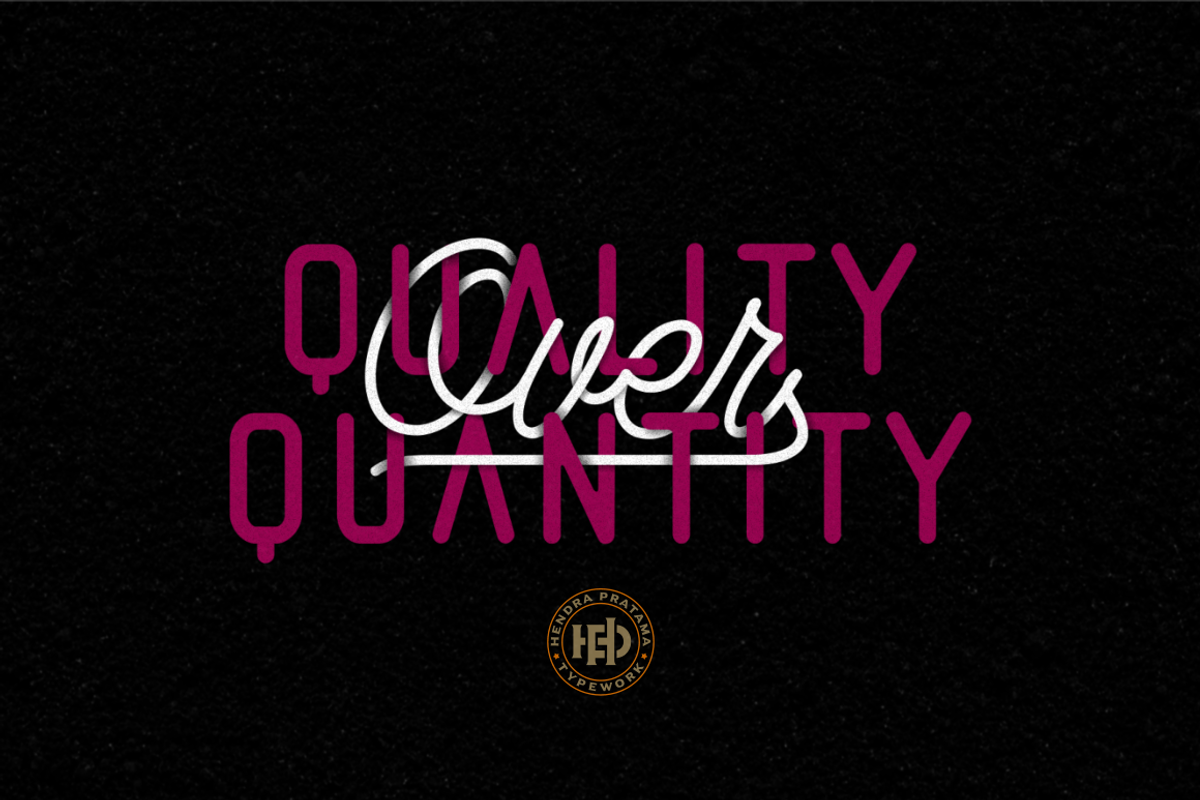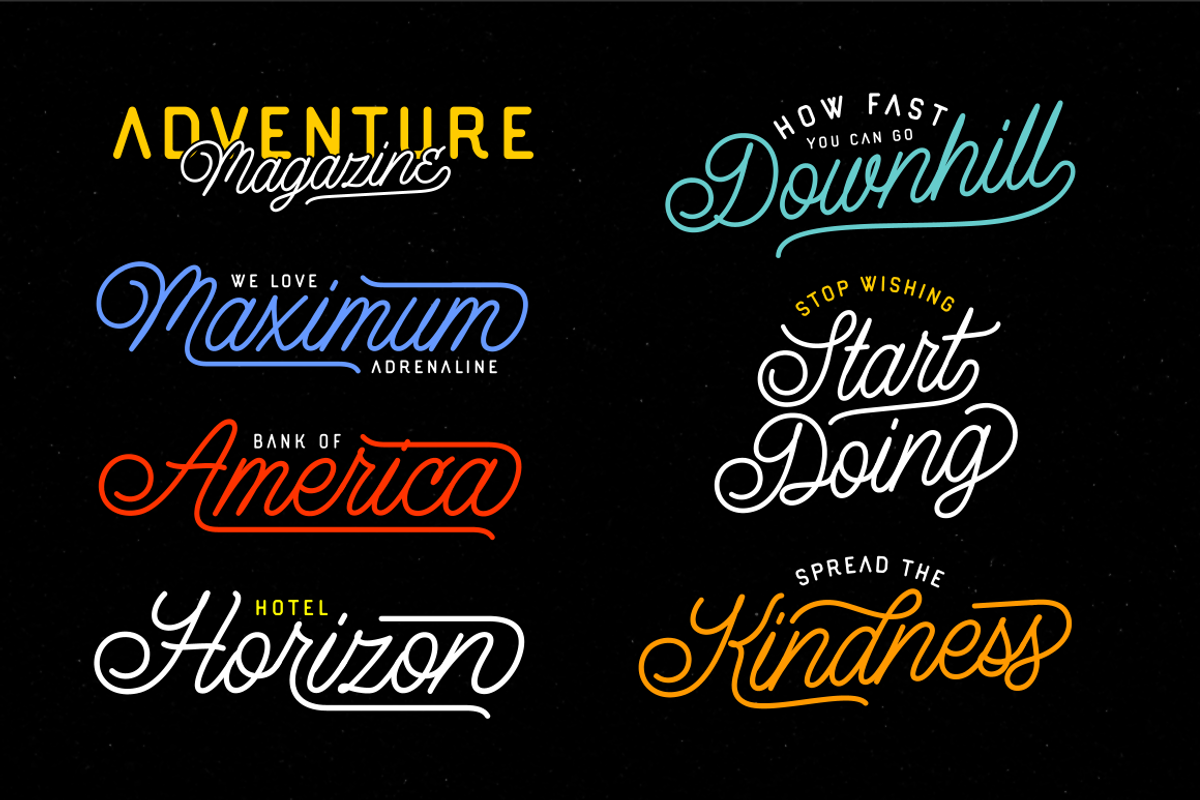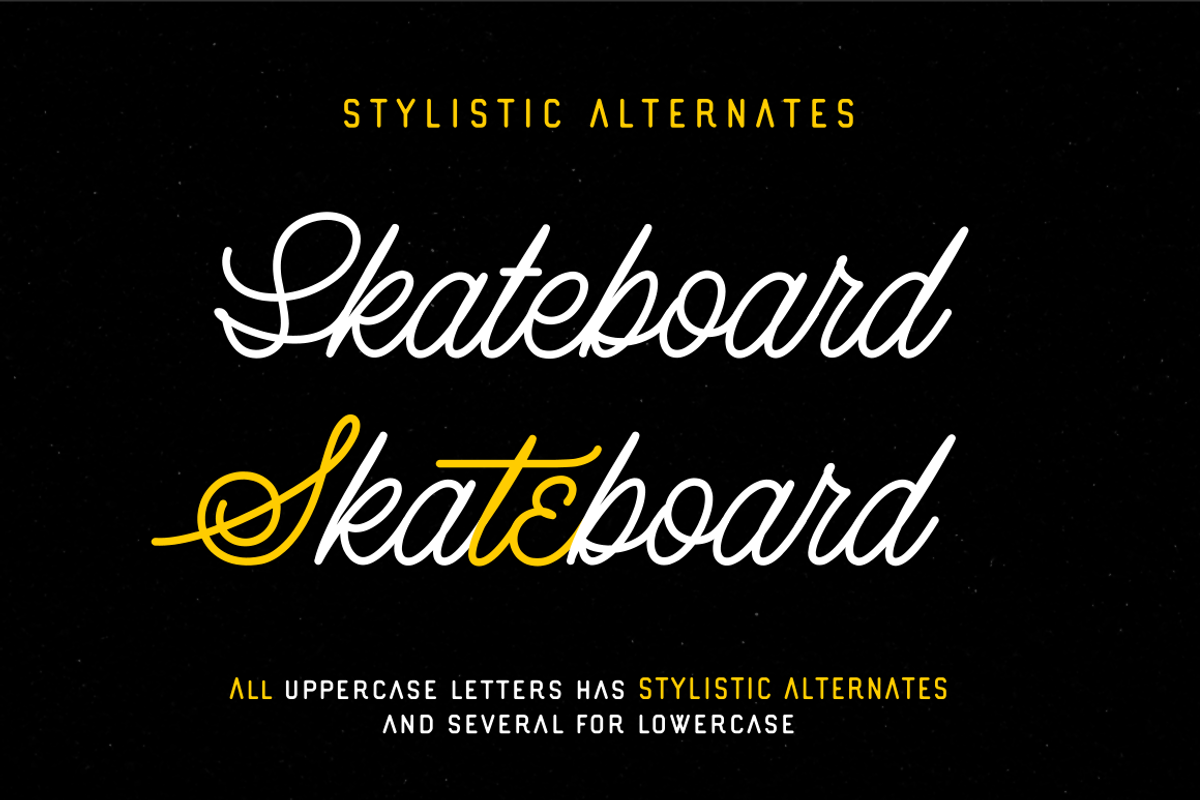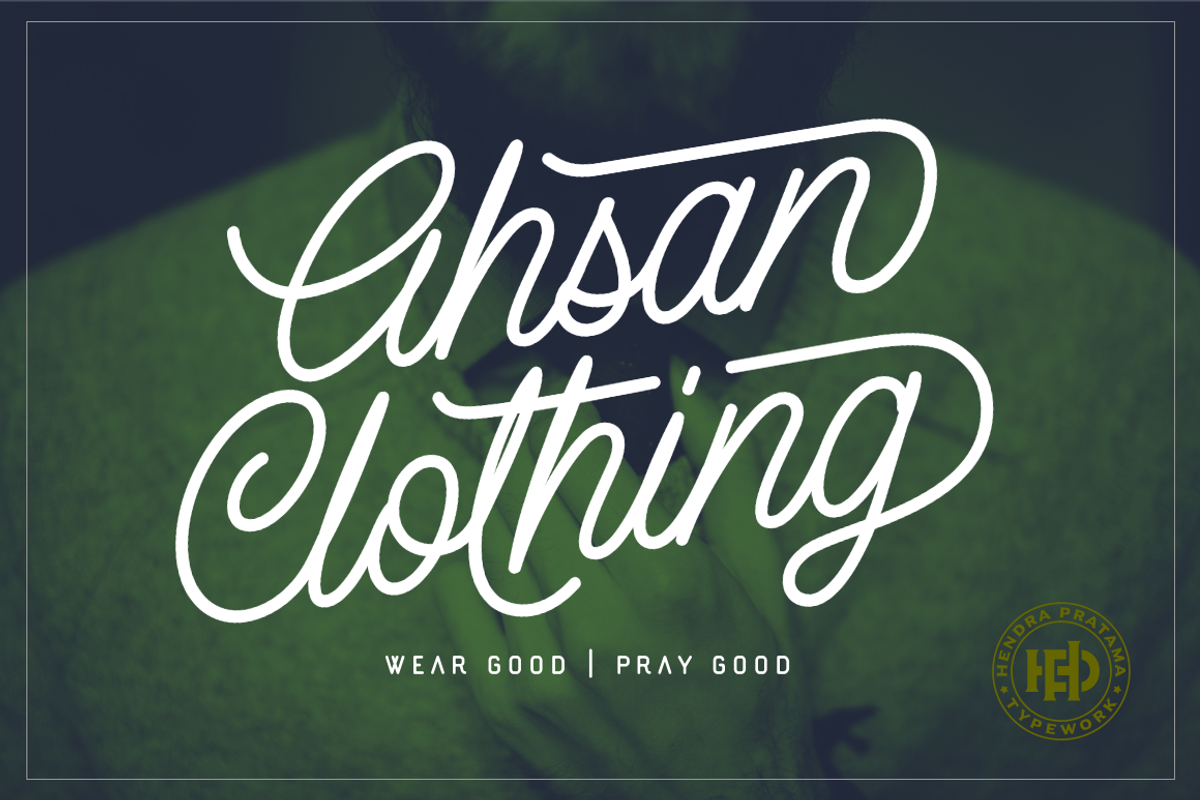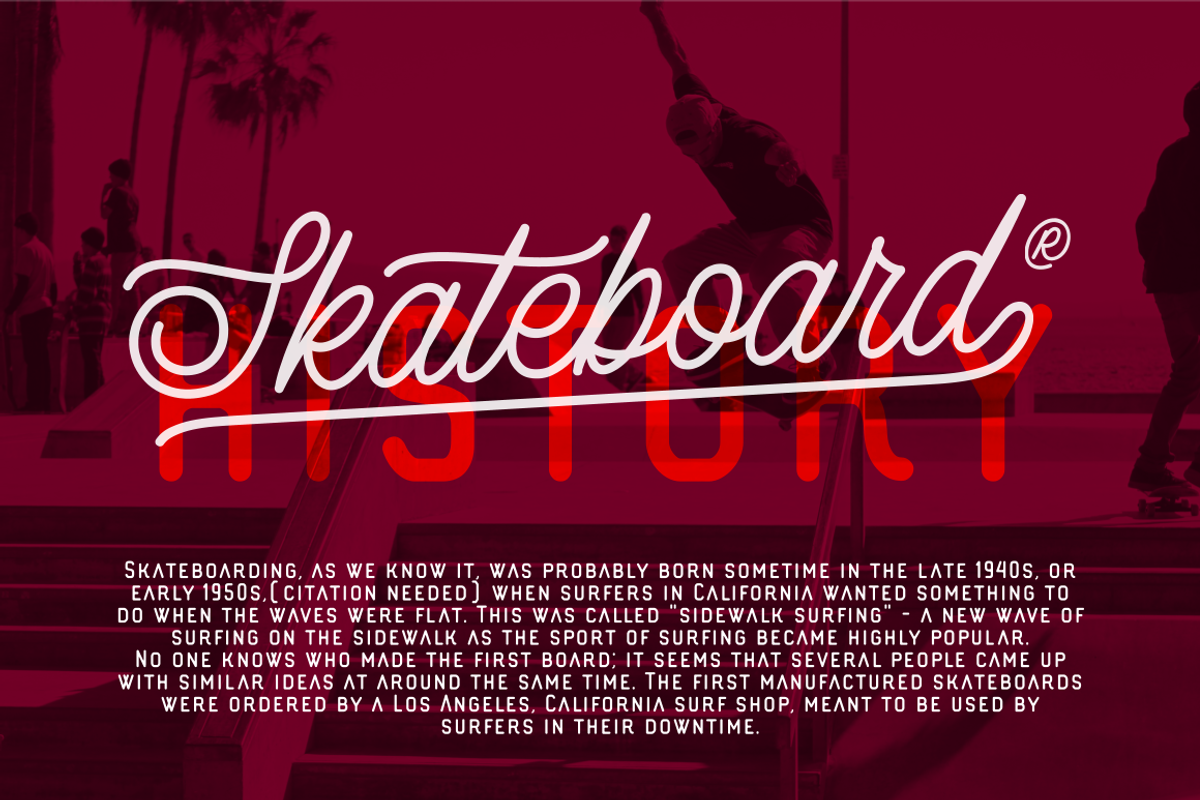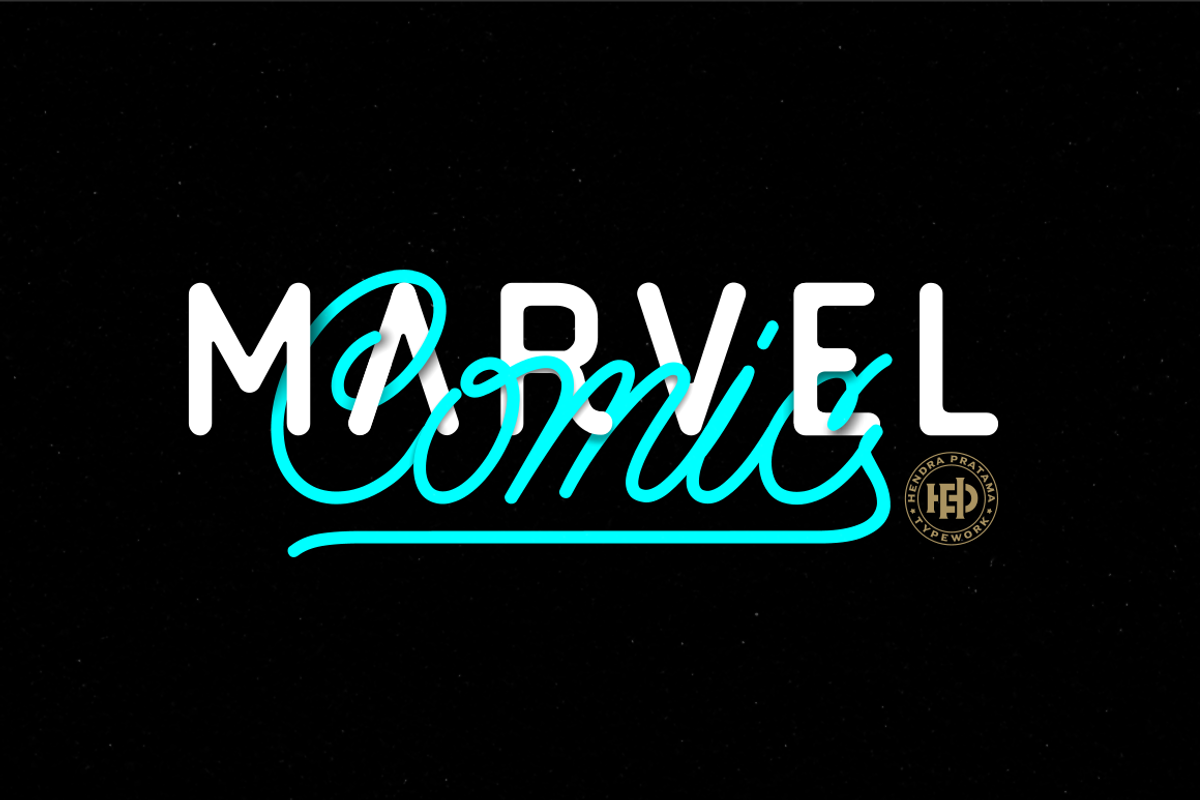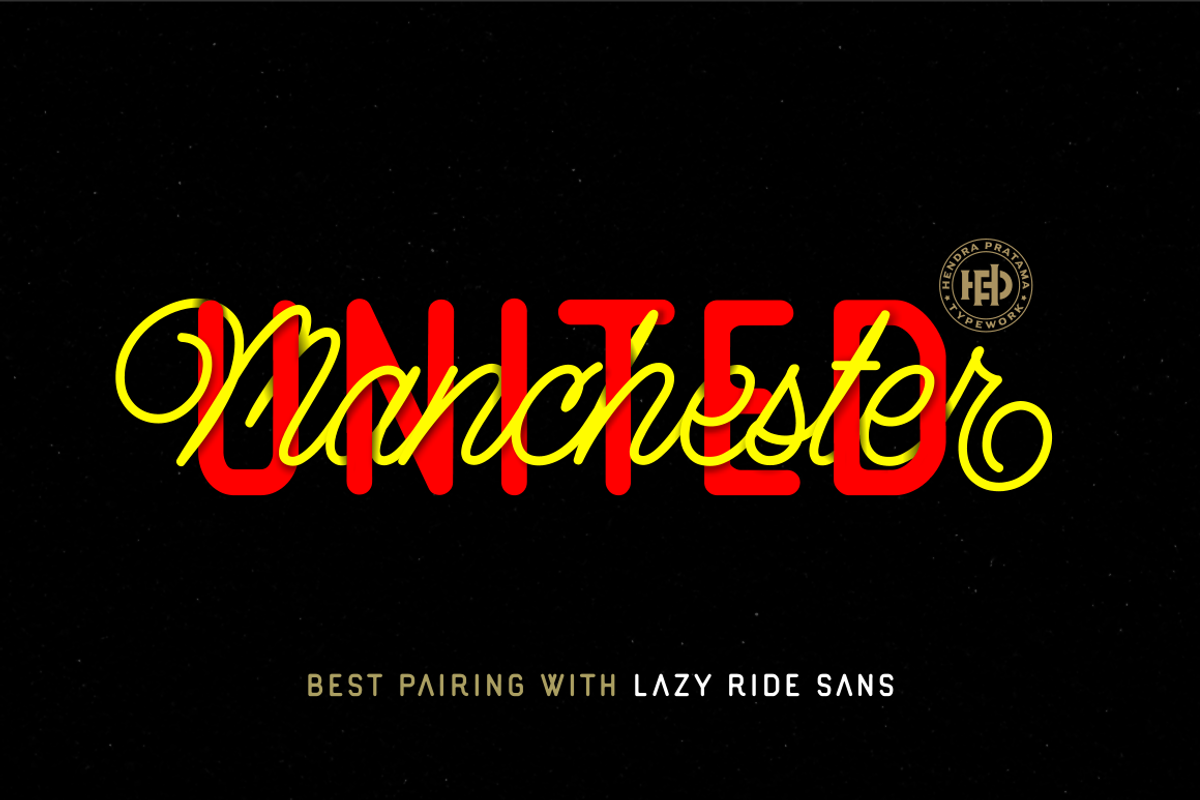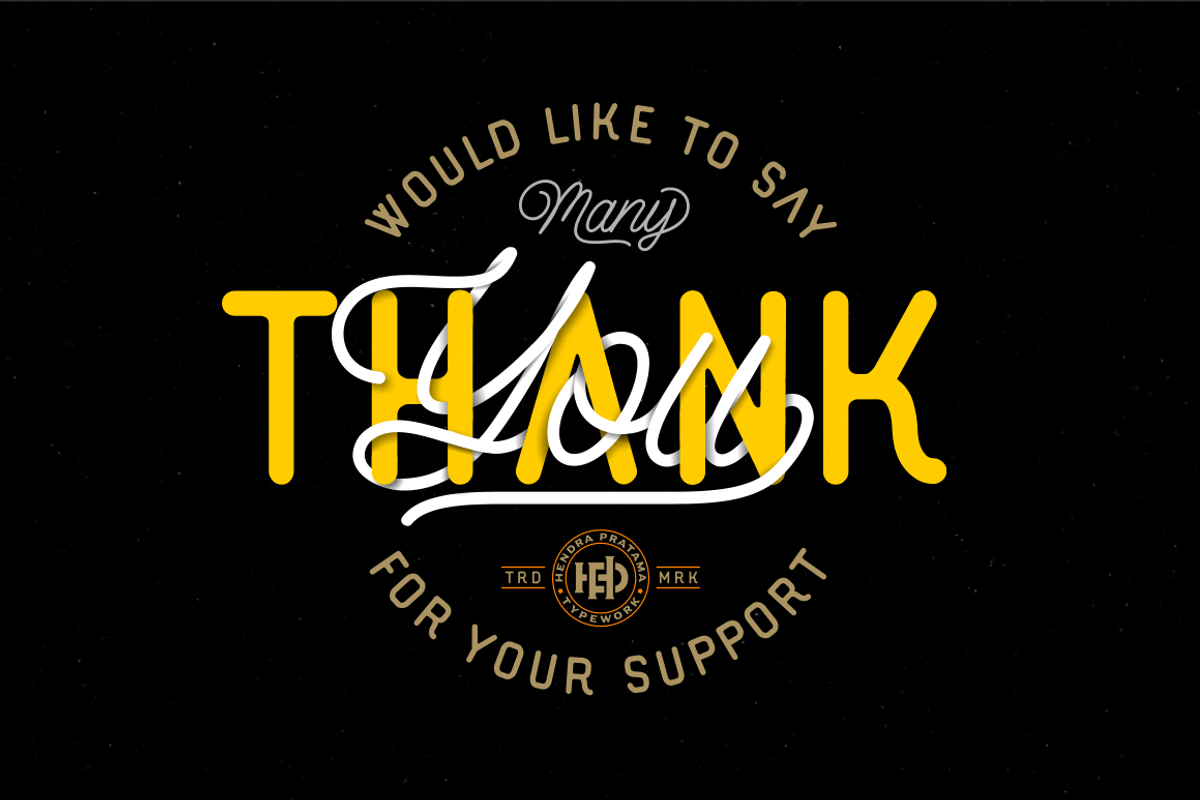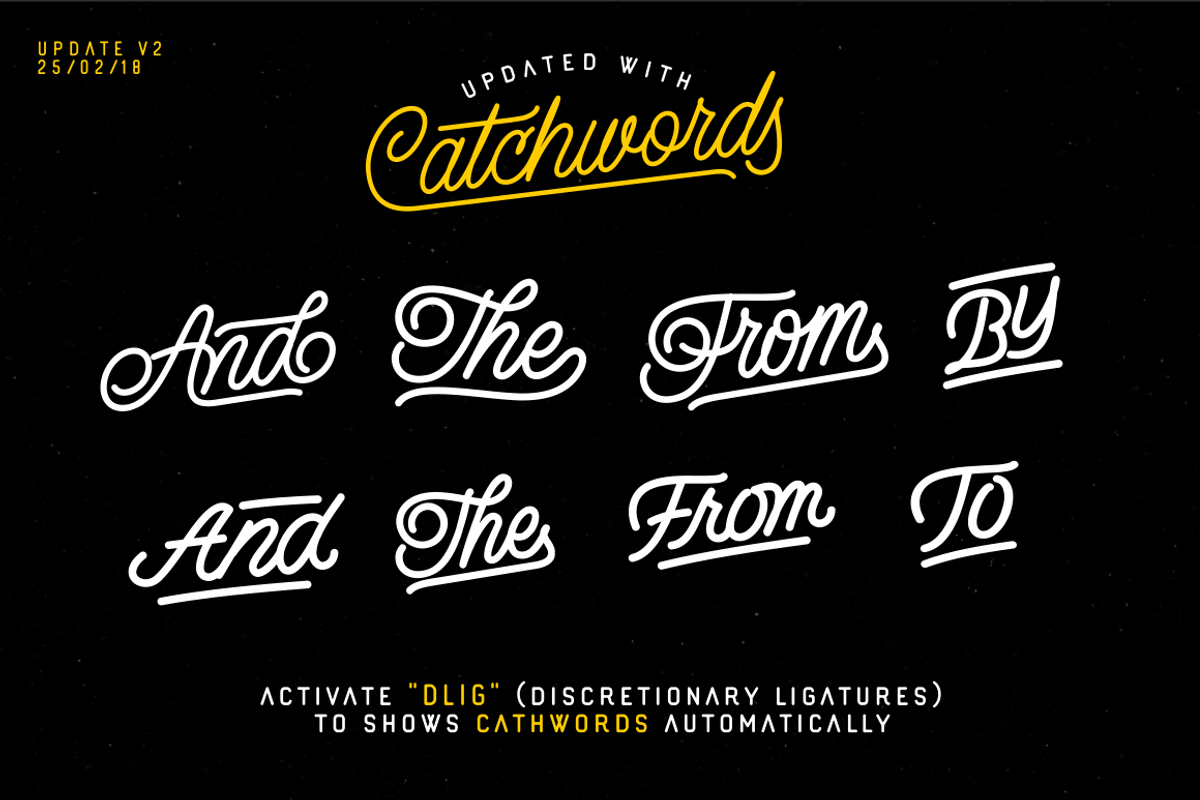
Lazy Ride - Script & Sans
Lazy Ride Sans Updated with such as this characters: AÀÁÂÃÄÅCÇDÐEÈÉÊËIÌÍÎÏNÑOØÒÓÔÕÖUÙÜÚÛWẂŴẄẀYÝŸỲŸÆŒß
Totally 261 Glyphs available. Please see the last new preview images for details!
Added 8 Catchwords on Lazy Ride Script. Please, see the new- last image on preview for details.
This monolinear script was started after i did some lettering project, create a custom logotype for "Lazy Ride Club", a classic motorcycle club in my hometown.
Since the logotype i've created looks awesome, i think it is a good idea to make a full-packed typeface version based on that monoline lettering.
Lazy Ride is such a nice couple font; Script and Sans. These collections are a great choice for font pairing or combination. You will and you can, easily create a custom logotype, short typography, titling or other artistic - vintagious type design.
Lazy Ride Script is contains more than 670 glyphs, OpenType Format with PUA Unicode Assigned. The alternates glyphs is divided into several OpenType Features: Stylistic Alternate, Contextual, Swashes, Ligatures and Stylistic Set. On Stylistic set you can choose glyphs for subtitutions up to 21 variant per letter.
And Lazy Ride Sans is an all caps font, TrueType Format. It has a very minimal basic character; Uppercase and lowercase, numerals, punctuation and some of currency symbols ( see the last image on preview). The Uppercase is more Condensed and it's great for create titles or headline. And the lowercase is as good as a text for pairing with the Script version.
I planed to add more character with alternates such as Ligatures or Stylistic, and also more languange to Sans version in the future.